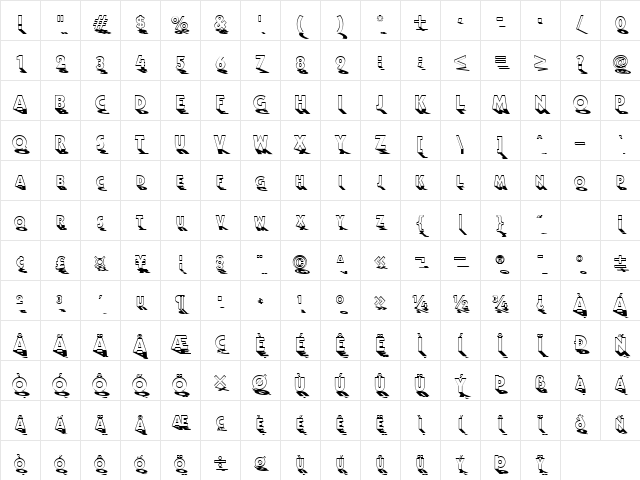
Backlit Regular Free Font
Backlit Regular
Design Context for Backlit
Backlit is a composed and adaptable typeface that performs quietly and consistently across a wide range of design contexts.
Pro Tip: Use Backlit in both headline and body roles to test its range before committing to a single application.